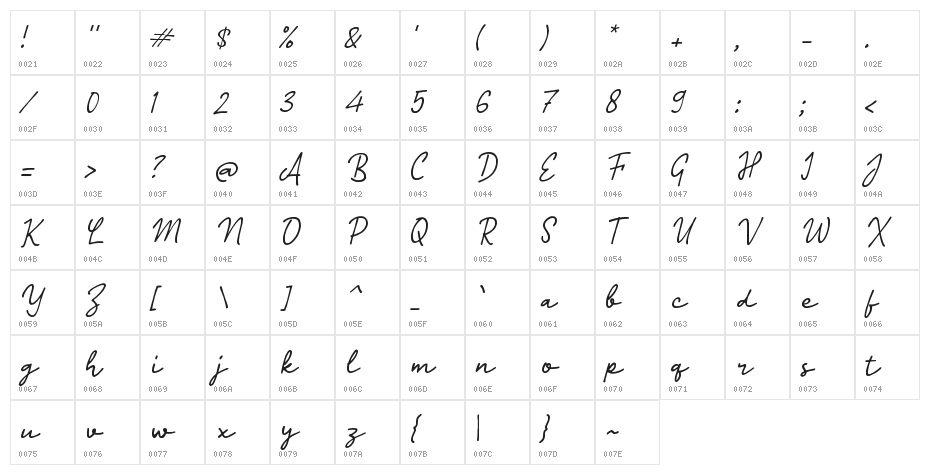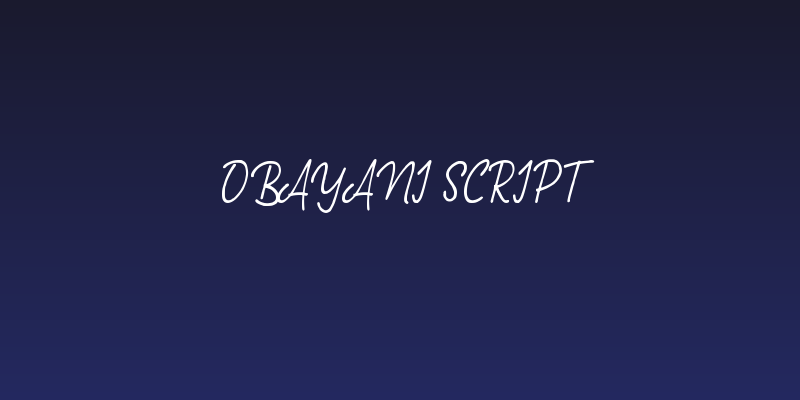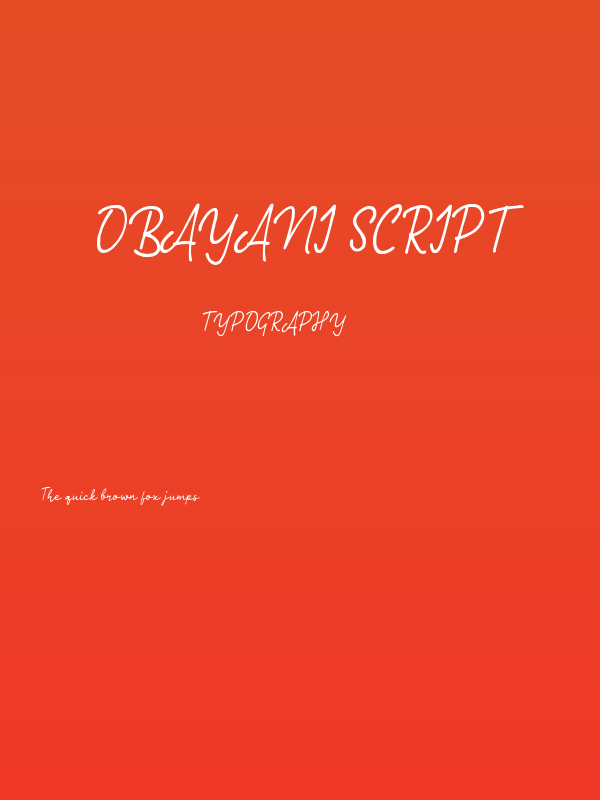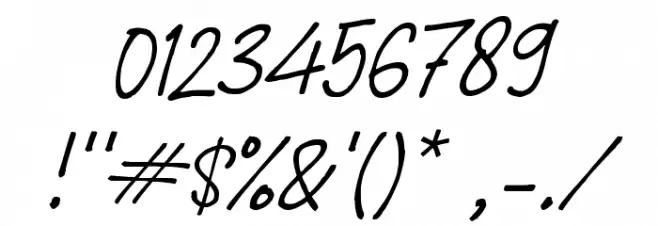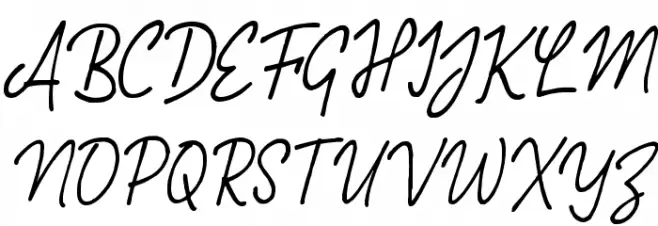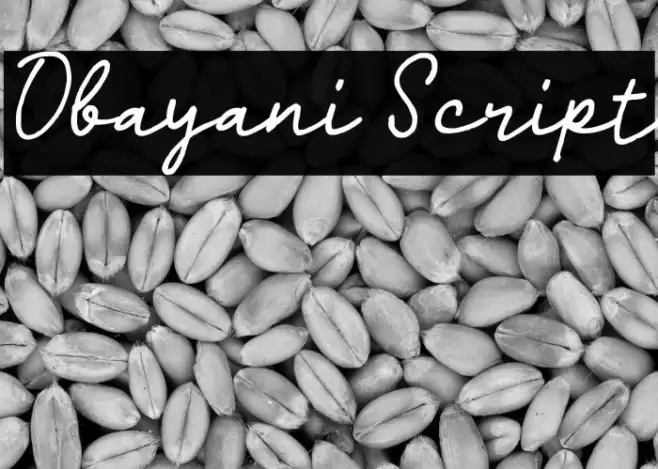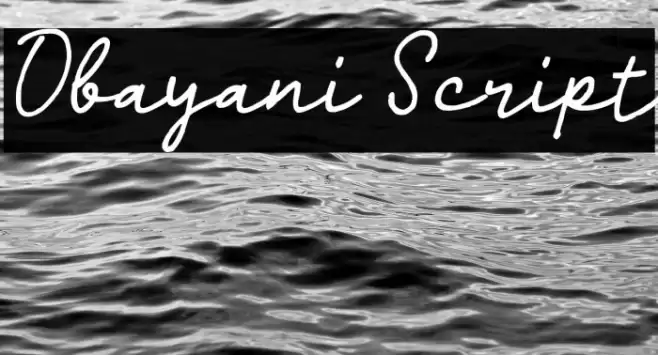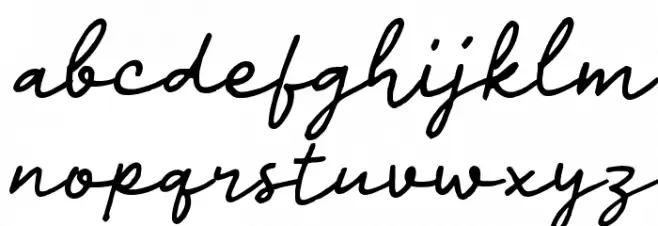
Obayani Script Font
Obayani Script Description
A cursive, handwritten script font with a casual and flowing style, featuring both uppercase and lowercase letters, numerals, and common punctuation.
| Overall Style | Casual, Handwritten |
| Use Case | Invitations, greeting cards, personal branding, logos, decorative text |